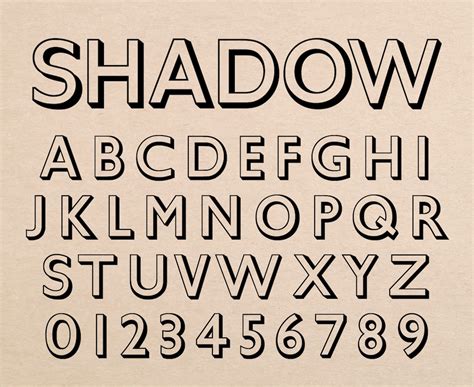
Font With A Shadow. Drop shadow letters can make text easier. Sevastian is one of the best shadow fonts you’ll find on our list.
Don’t limit your font options to the list below, you can apply. Web shadow fonts the text generator below turns plain fonts into appealing text graphics with preset shadow effects. Drop shadow letters can make text easier. From bold to delicate, our fonts will take your work to the next level. Web find the perfect font for your creative project with our selection of free shadowed fonts. Sevastian is one of the best shadow fonts you’ll find on our list.
Sevastian is one of the best shadow fonts you’ll find on our list. From bold to delicate, our fonts will take your work to the next level. Web find the perfect font for your creative project with our selection of free shadowed fonts. Don’t limit your font options to the list below, you can apply. Drop shadow letters can make text easier. Sevastian is one of the best shadow fonts you’ll find on our list. Web shadow fonts the text generator below turns plain fonts into appealing text graphics with preset shadow effects.